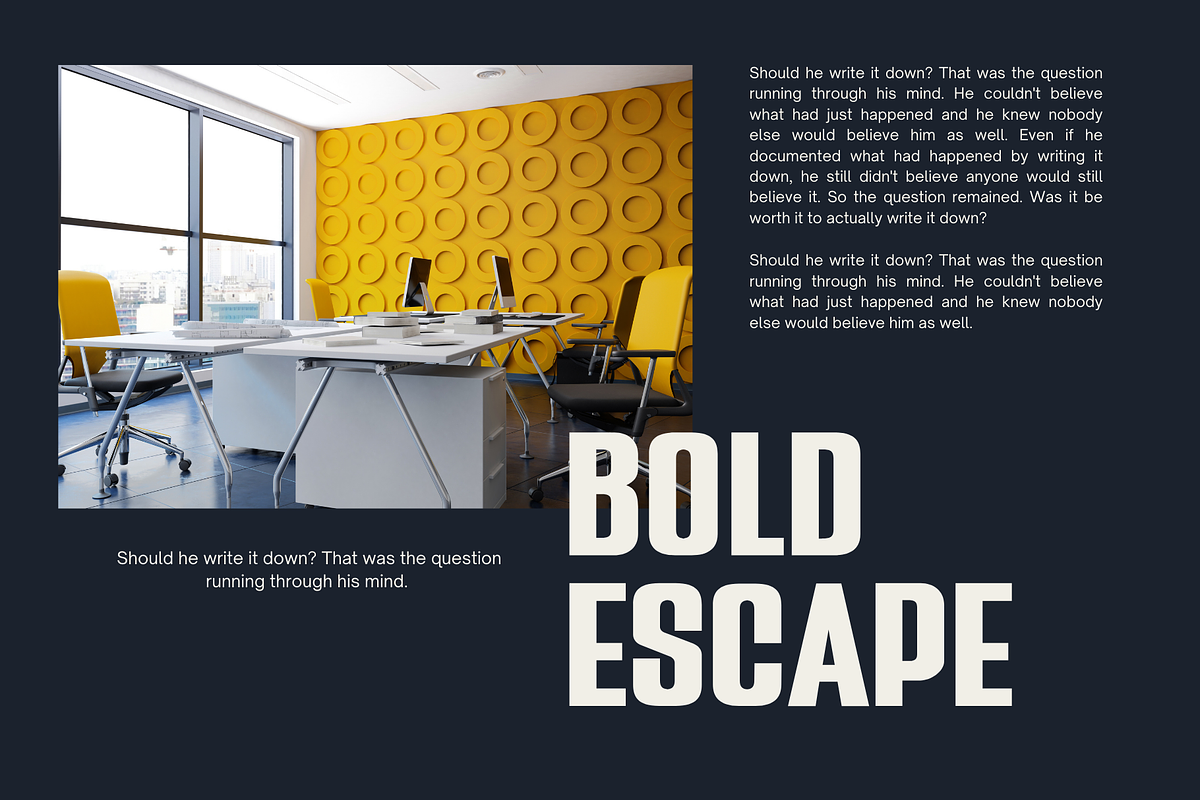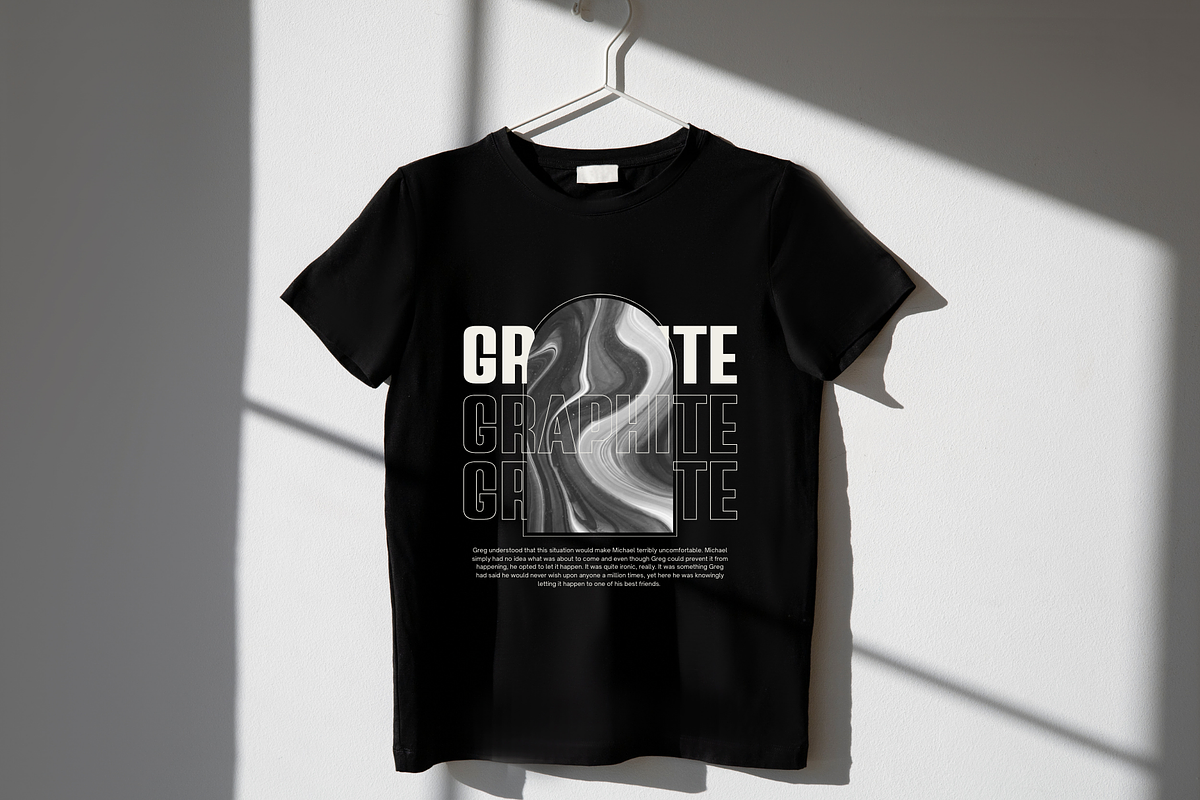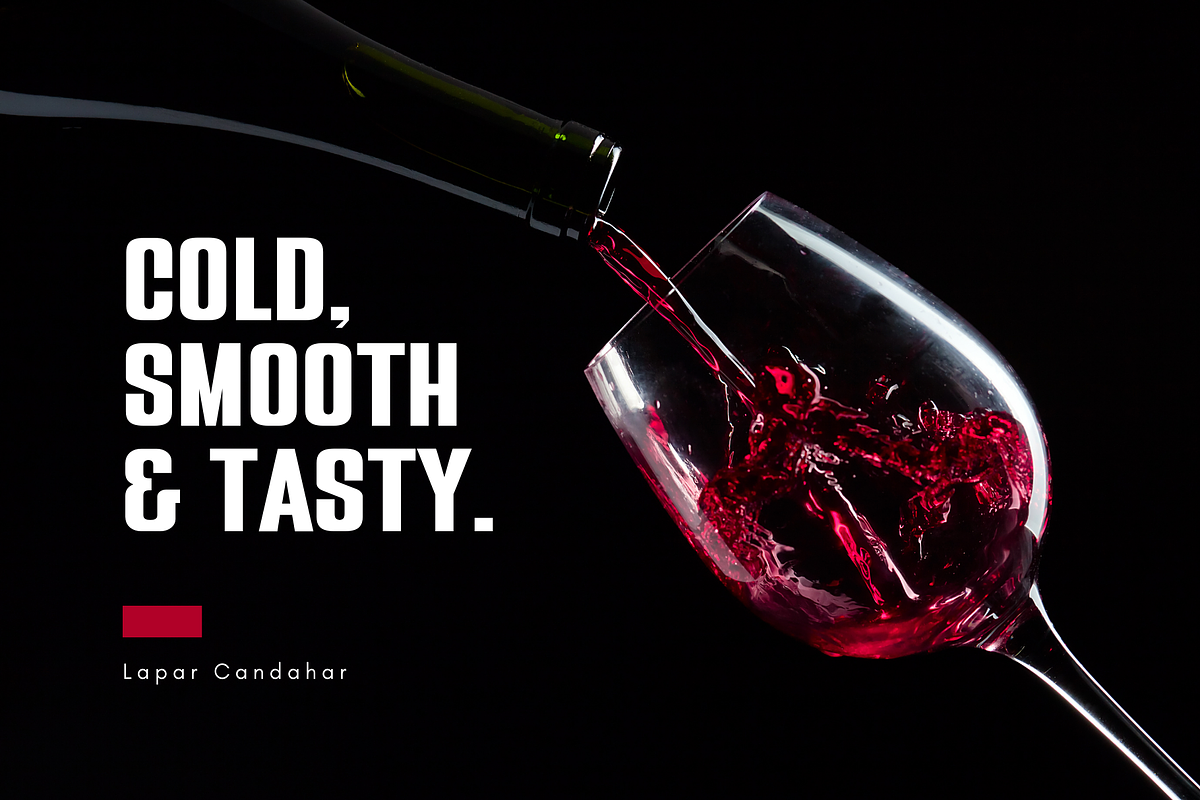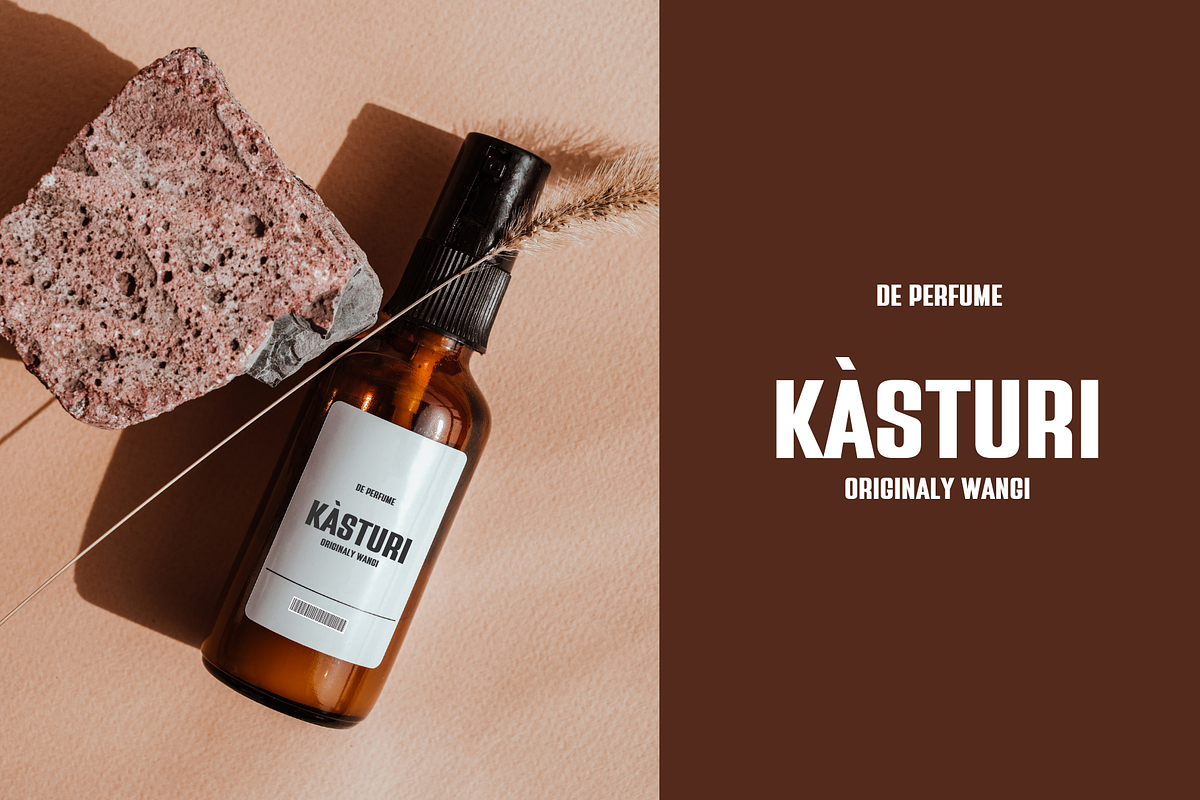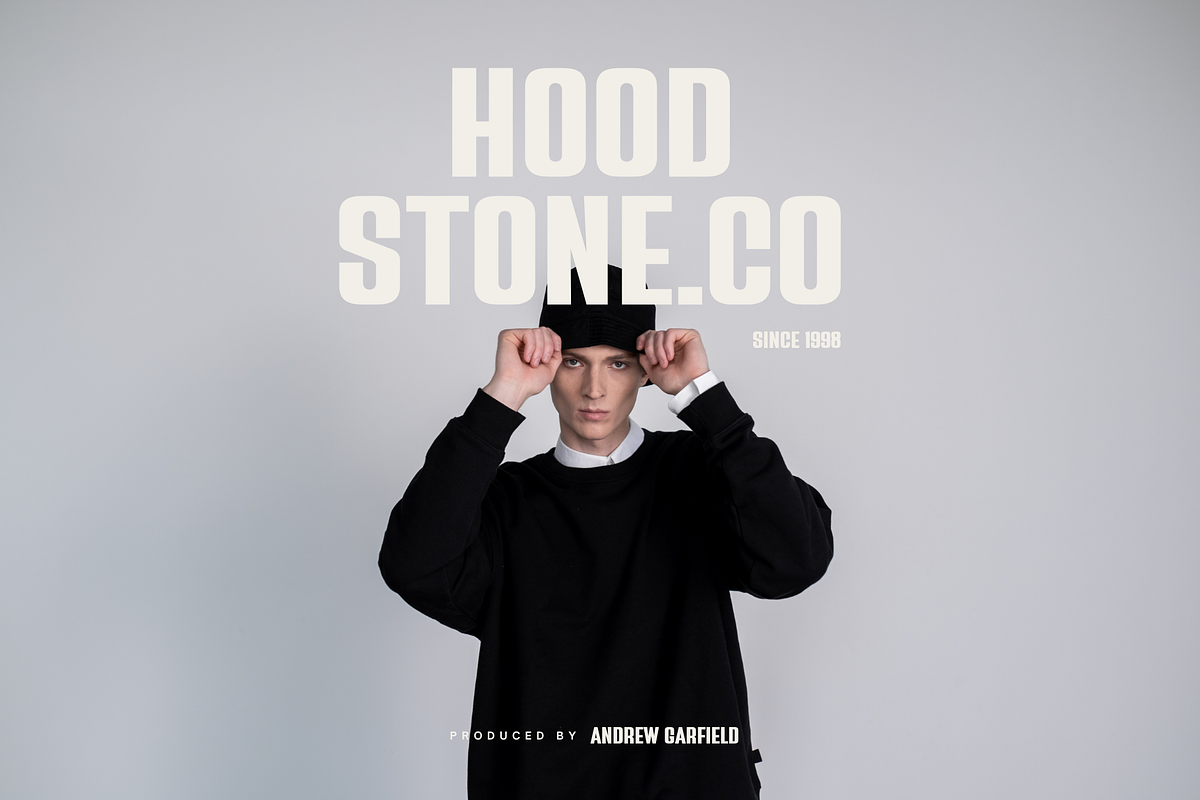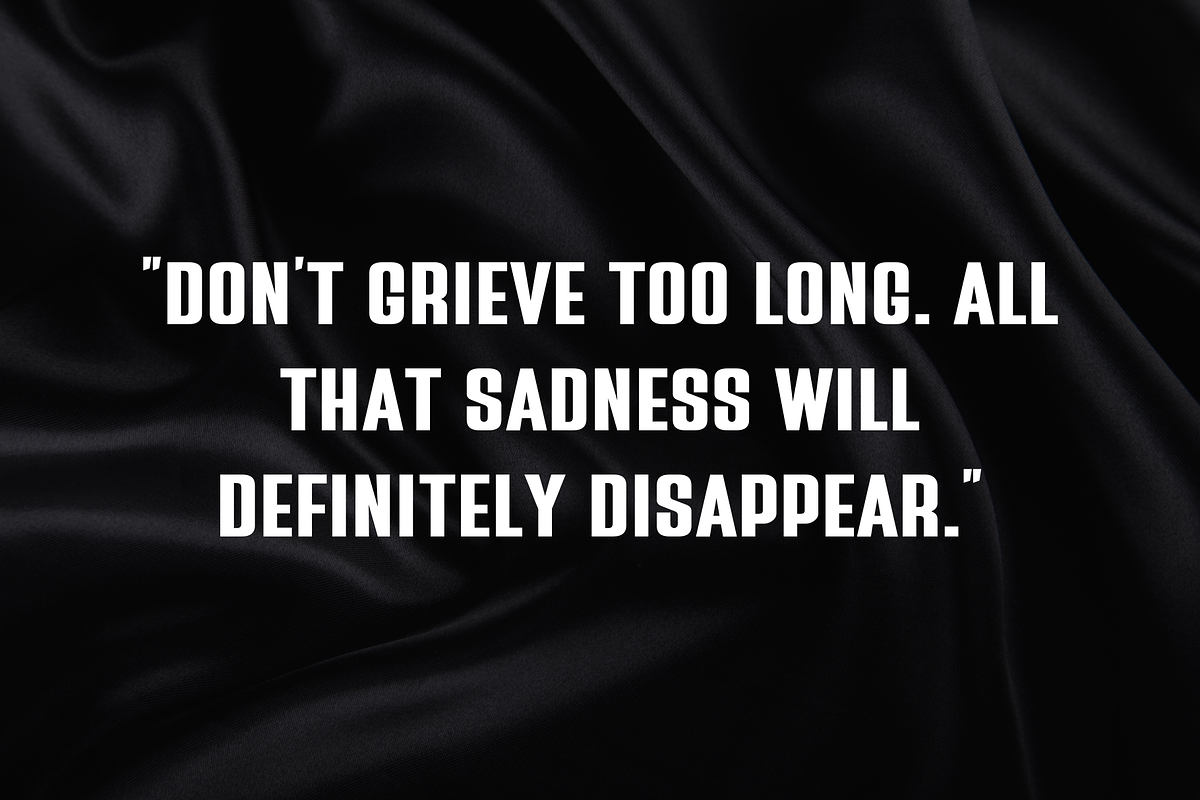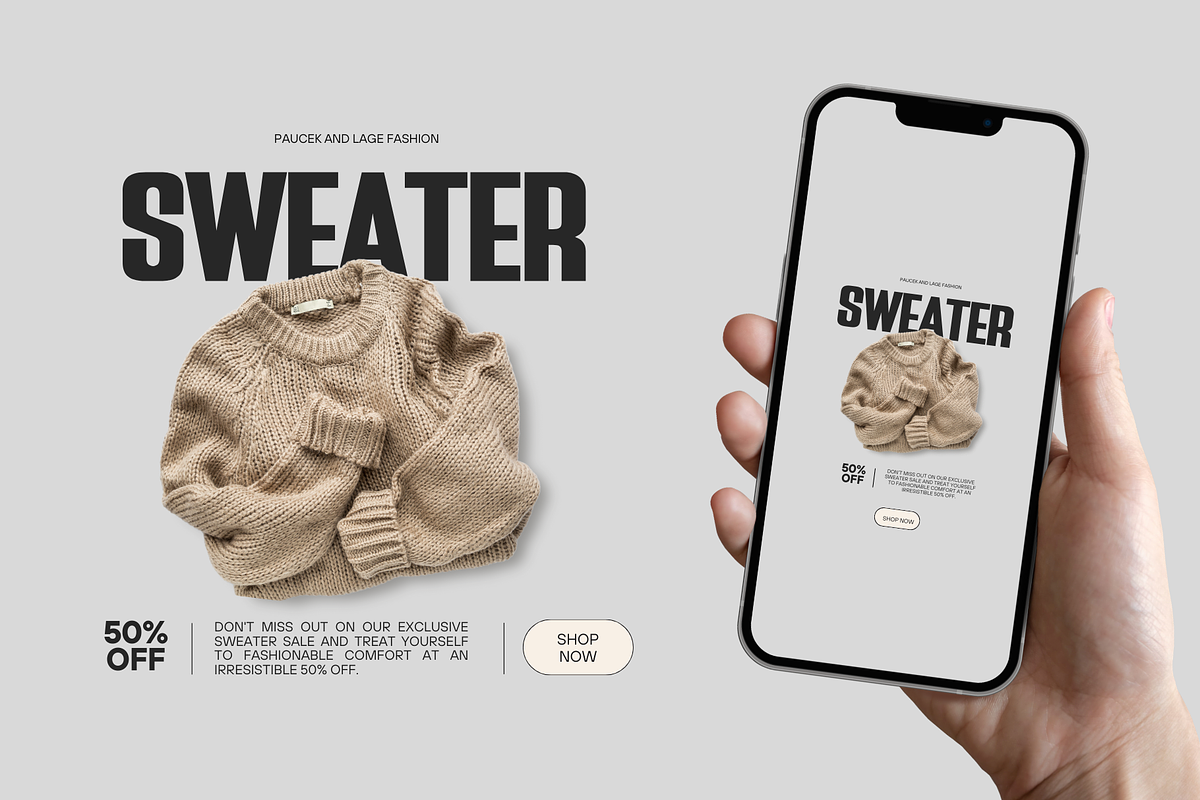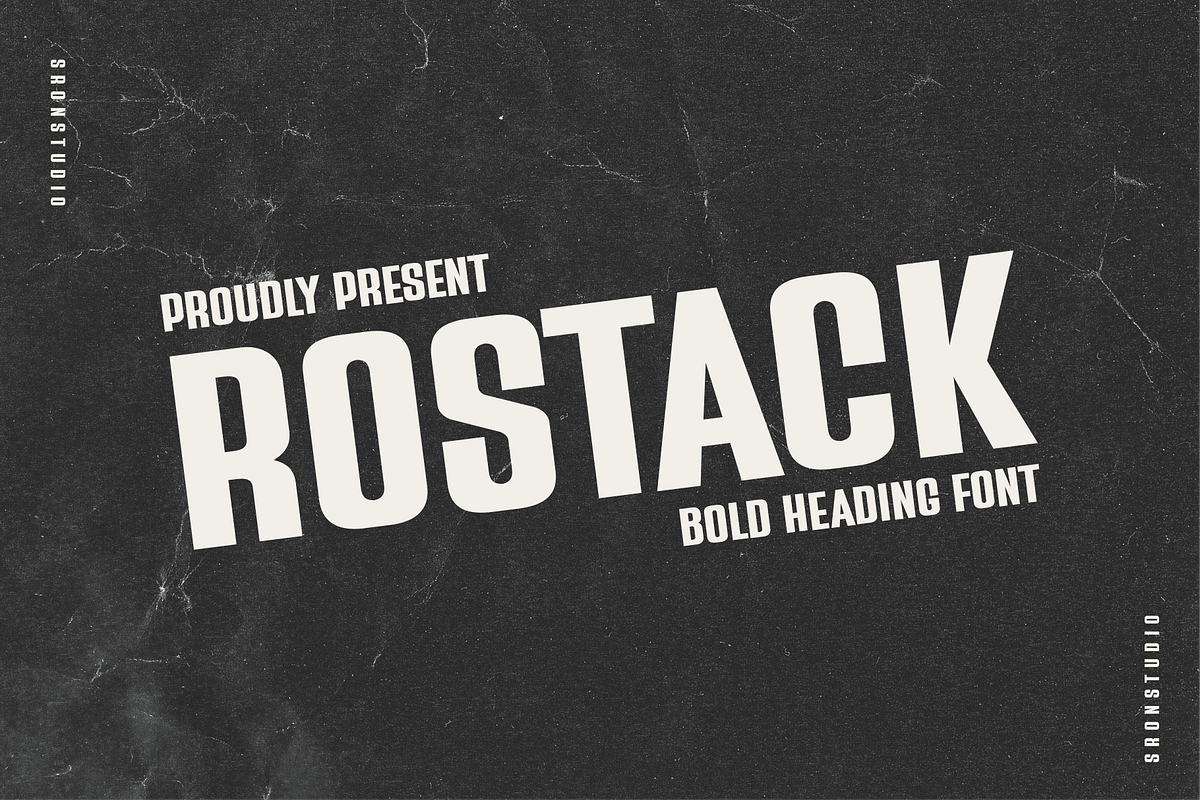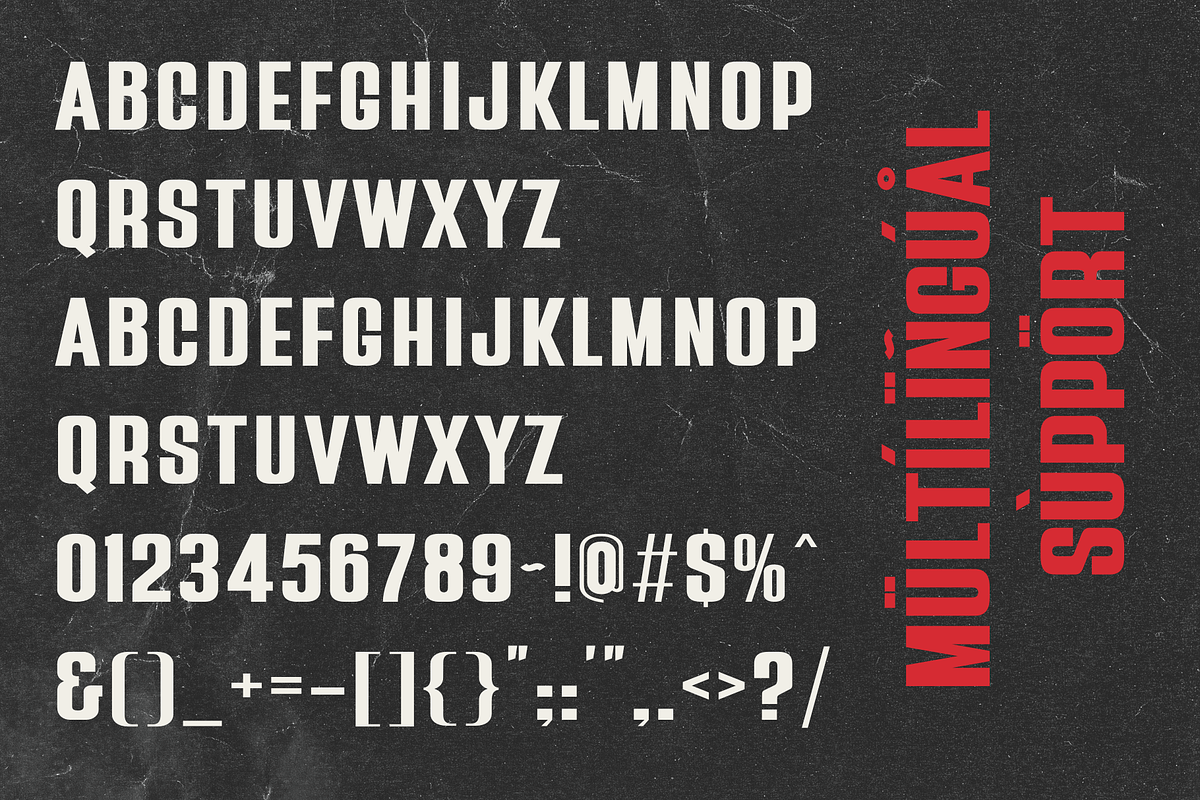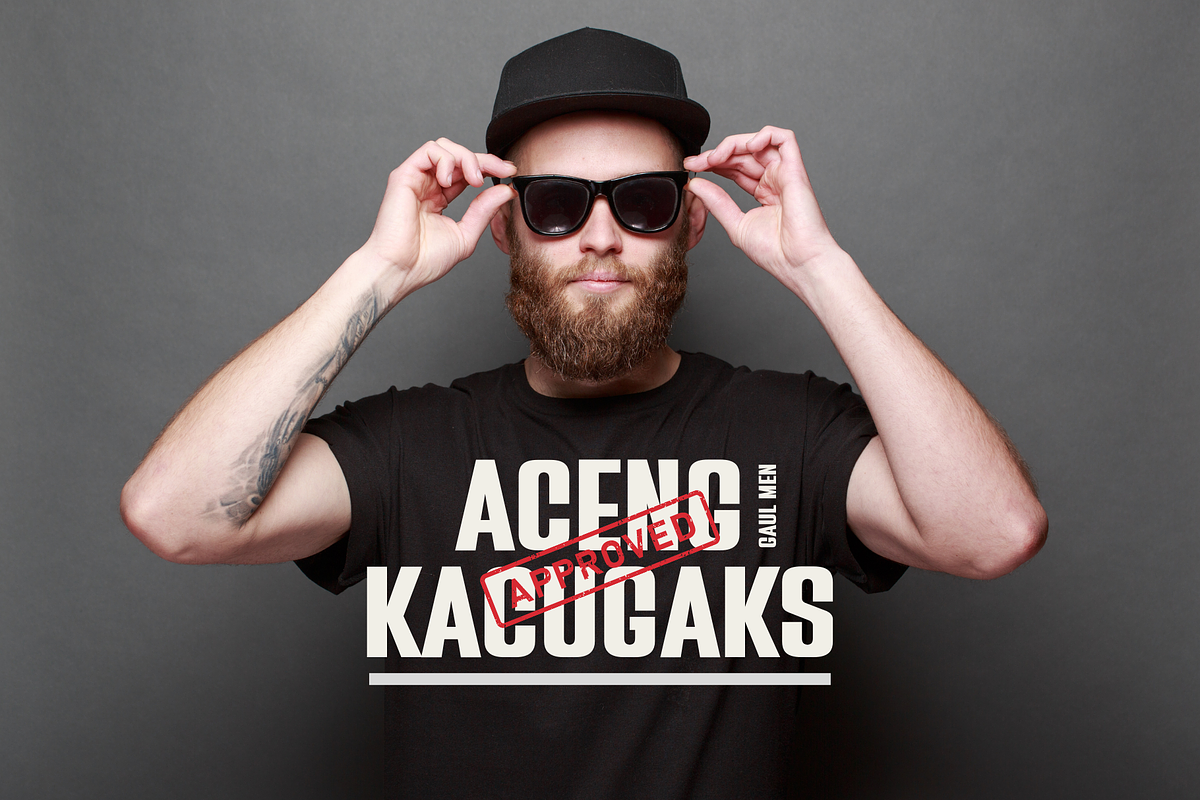
Rostack - Bold Display
"Rostack" is a bold condensed font that commands attention and makes a powerful statement. With its strong strokes and compact letterforms, it is perfect for headlines, titles, and designs that require a bold and condensed style. Deliver your message with clarity and impact using the modern sophistication of "Rostack"
- Uppercase and lowercase letters
- Multilingual, numerals, and punctuation